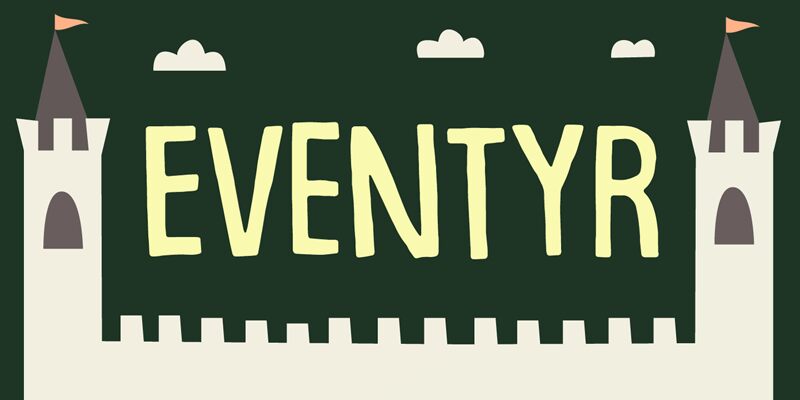
Eventyr DEMO Regular
Eventyr, a whimsical creation by renowned font designer Pizzadude, is a delightful display font that exudes charm. With its semi-light weight and semi-condensed width, Eventyr is perfect for projects that demand a touch of playfulness and elegance. Whether it's children's books, greeting cards, or event invitations, this comic-style typeface adds an enchanting allure to any design. Let Eventyr transport your audience to a world of imagination and creativity with its captivating curves and lively strokes. Unleash the magic of this font and bring your projects to life!